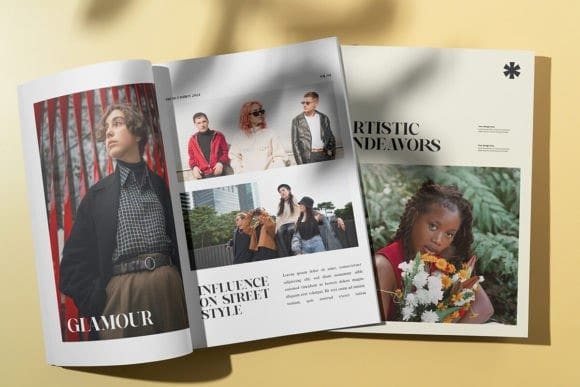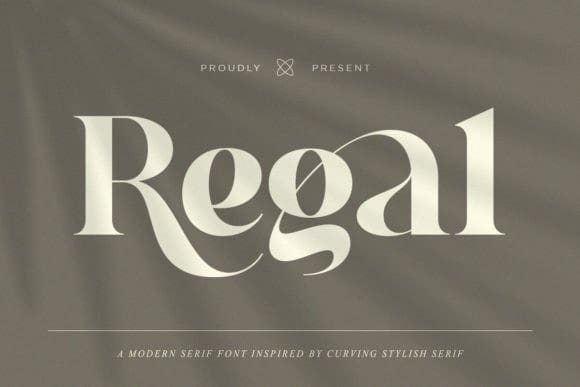
Regal Font
Regal Font is a timeless serif font exuding elegance and sophistication. With its clean lines and classic proportions, Regal evokes a sense of refinement and professionalism. Perfect for editorial design, branding, and luxury applications, Regal adds a touch of timeless sophistication to any project, making it truly memorable and captivating.